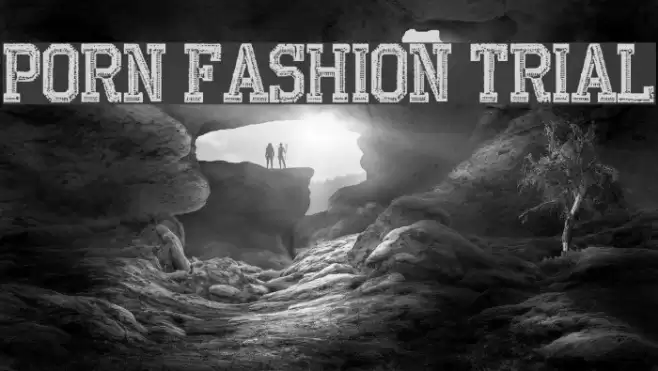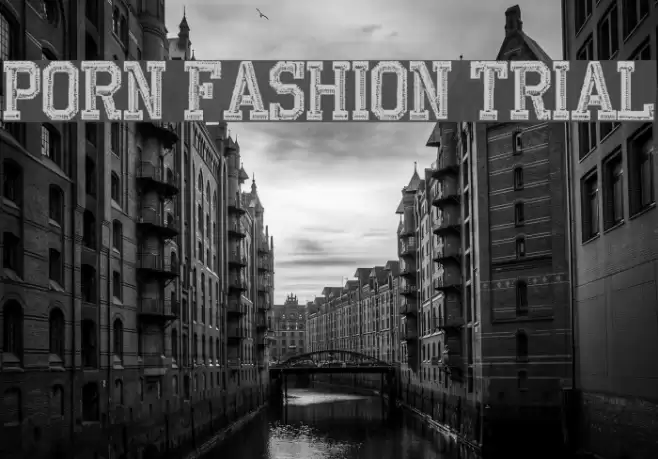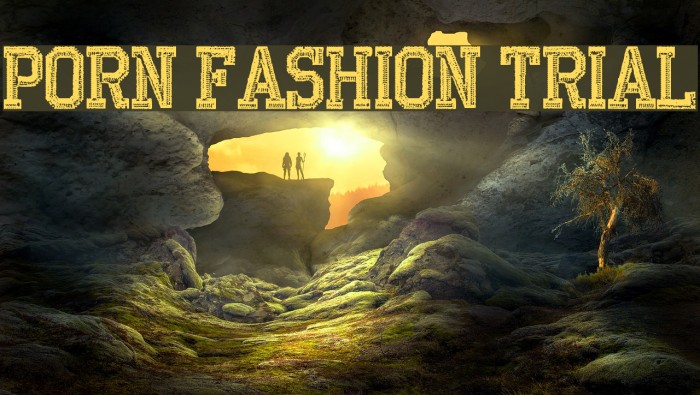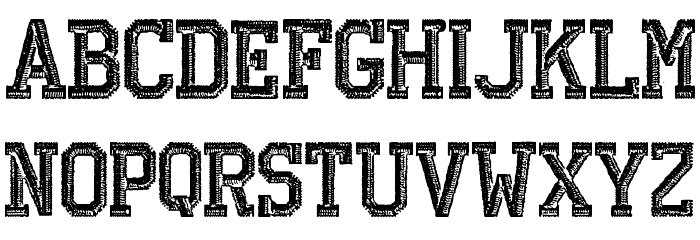
PORN FASHION TRIAL Font
PORN FASHION TRIAL Description
This font features a bold, decorative style with a textured, almost distressed appearance. The characters are outlined with a dotted pattern, giving them a unique, eye-catching look. The uppercase letters are uniform in height and width, with a strong, sturdy presence. The design is reminiscent of vintage or retro styles, making it suitable for projects that require a touch of nostalgia or a bold statement. The intricate detailing within each letter adds depth and character, making it stand out in any design context.
A bold, decorative font with a textured, vintage appearance from Uncategorized fonts.
- Proposed Projects: Ideal for posters, branding, headlines, and any design needing a vintage or bold aesthetic.
- Overall Style: Vintage